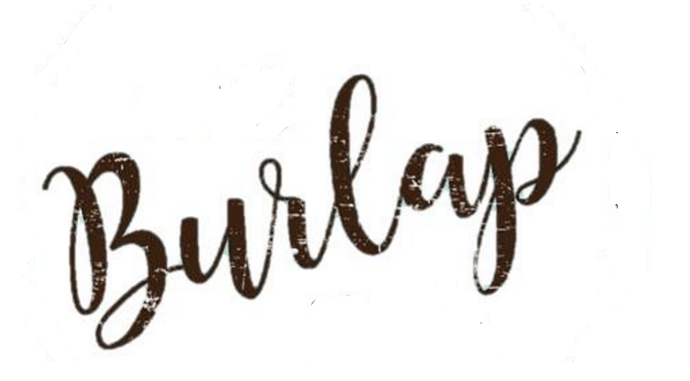
Where did you find it? Looks very cool.
Bonjour Type offers several ‘modern calligraphy’ typefaces like that.
Very close except for the /B, Musica Script by joelmaker